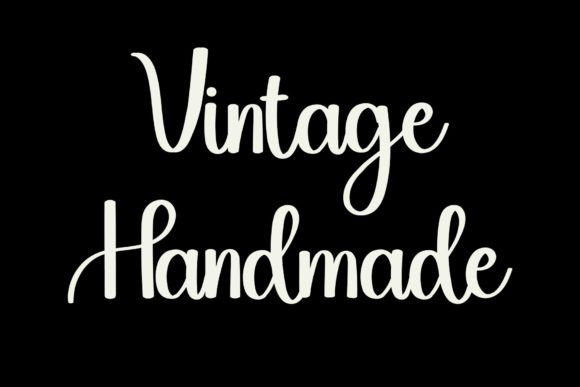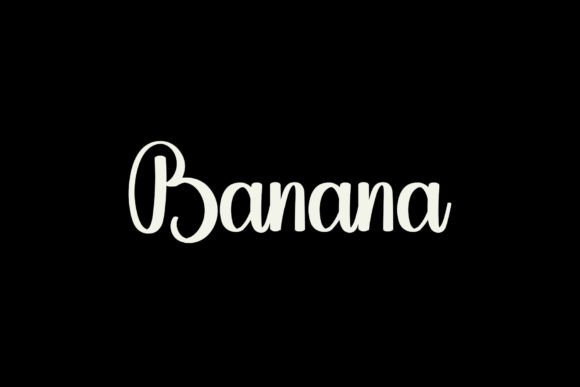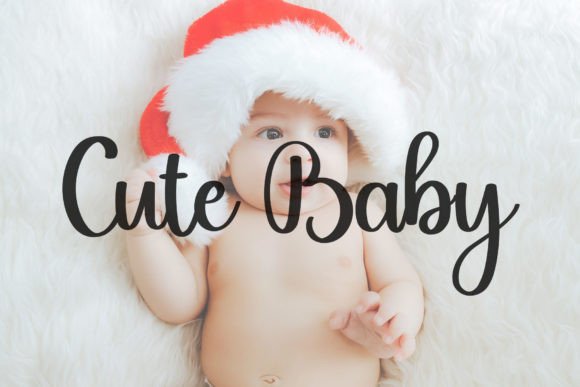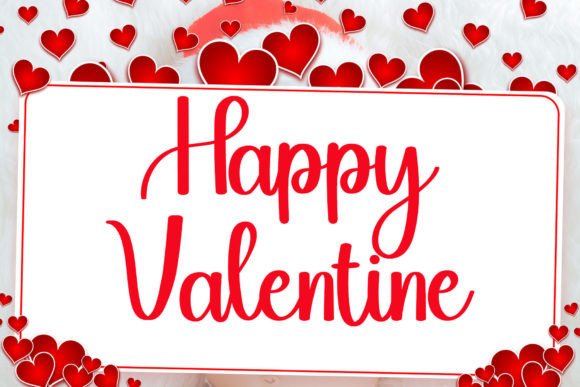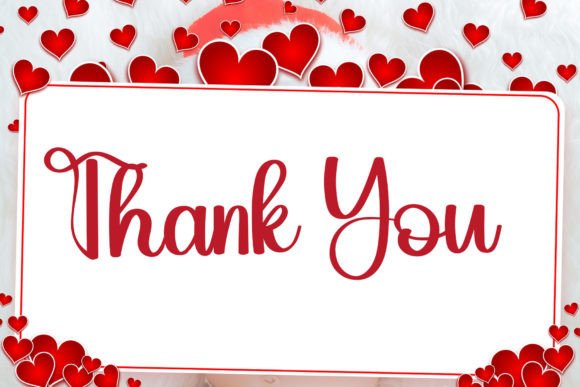
Handmade font is a delicate, elegant, and flowing handwritten typeface designed to bring sophistication and grace to your creative designs. This font features beautifully balanced characters, which give it a natural, smooth flow that enhances a wide variety of projects. Whether you are creating invitations, branding materials, or artistic compositions, Handmade font adds a unique charm and a personal touch that will make your work truly stand out.
Elegant and Flowing Design
One of the key strengths of Handmade font lies in its graceful flow. Each letter connects seamlessly to the next, creating a harmonious rhythm that is pleasing to the eye. The delicate strokes and well-proportioned characters combine to create an elegant script style that feels both modern and timeless. This flowing quality makes Handmadefont ideal for projects that require a soft and refined aesthetic.
Versatile Usage Across Designs
Handmadefont adapts beautifully to many design needs. It suits wedding invitations, thank-you cards, logos, and branding projects perfectly. Additionally, its graceful form works well for packaging design, social media posts, and signage. Thanks to its balanced and neat characters, Handmadefont can be applied to both formal and casual themes, making it a versatile addition to your font library.
Adds Personal Touch to Projects
Using Handmadefont in your creative work introduces a handcrafted feel that digital fonts often lack. It evokes warmth and authenticity, helping your designs to connect emotionally with the audience. This personal touch makes Handmadefont especially suited for crafts, small business branding, and any project where you want to convey sincerity and elegance.
Readability Meets Beauty
Despite its artistic flair, Handmadefont maintains excellent readability. The clear structure of each character ensures that your message is communicated effectively without compromising style. Whether used in print or digital media, Handmadefont performs well in various sizes and formats, making it both beautiful and practical.
Why Choose Handmade Font?
If you are looking for a handwritten font that combines elegance, flow, and versatility, Handmadefont is an excellent choice. It enriches your projects with a sophisticated yet natural look, helping your creative ideas come alive in a memorable way.